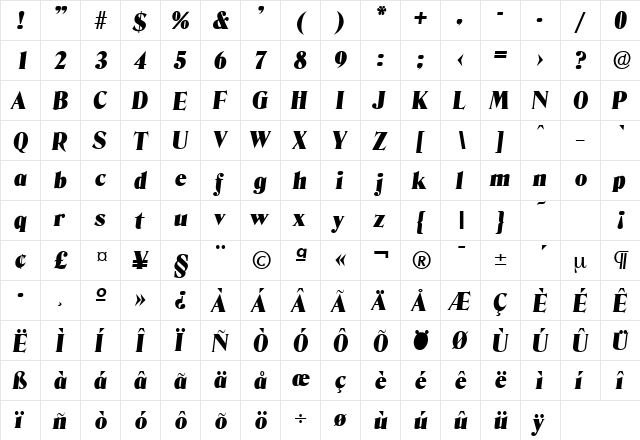
Denver-Serial-Black RegularItalic
Design Context for Denver-Serial-Black Typeface
Denver-Serial-Black offers clean, dependable letterforms without strong stylistic allegiance, making it a practical choice for designers who need flexibility. The slanted form adds forward momentum and visual energy.